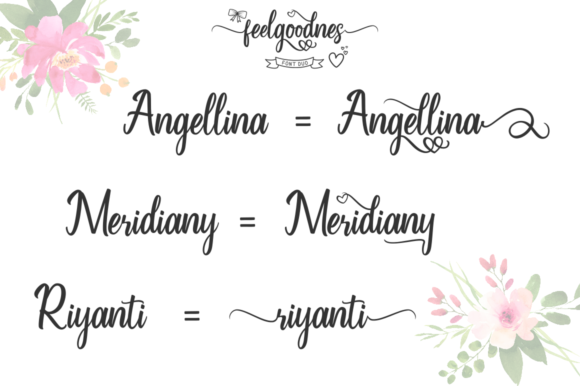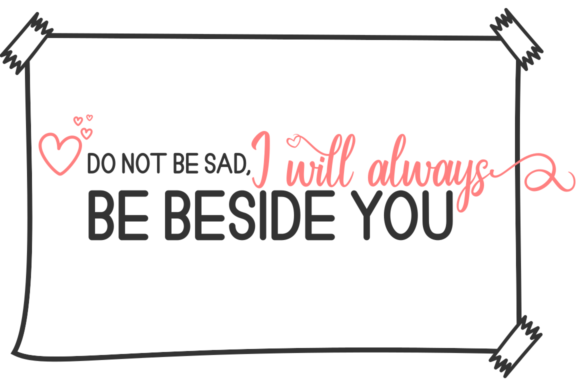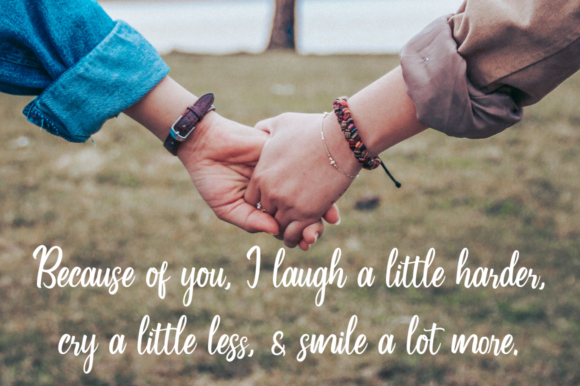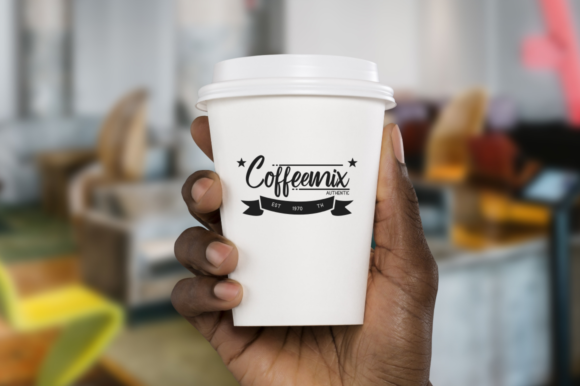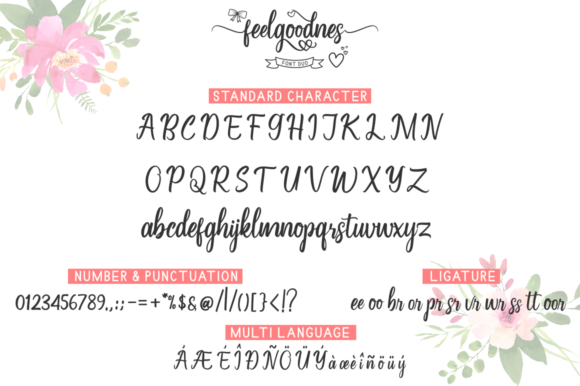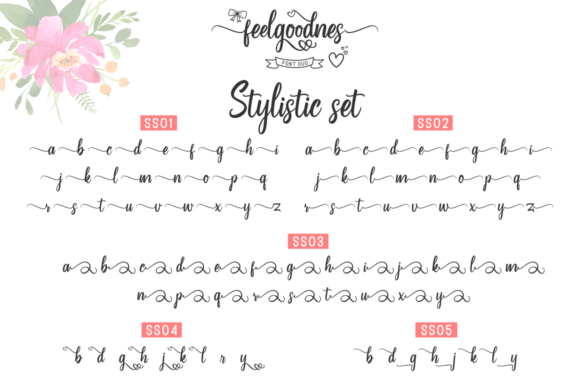
Introducing Feelgoodnes Font: The Perfect Modern Font Duo for Designers and Crafters
Are you tired of using the same old fonts in your designs? Look no further than Feelgoodnes Font, a modern font duo that combines a beautiful handwritten script with a clean sans font style. This stunning font combination is perfect for designers and crafters looking to add a touch of elegance and sophistication to their work.
What is Feelgoodnes Font?
Feelgoodnes Font is a modern font duo that consists of two complementary fonts: a handwritten script font and a sans font style. The handwritten font is a beautiful, light script with an amazing feel that’s perfect for adding a personal touch to your designs. The sans font style, on the other hand, provides a clean and modern contrast to the script font, making it ideal for headings, titles, and other design elements.
Key Features of Feelgoodnes Font
- Handwritten Script Font: The handwritten script font in Feelgoodnes Font is a beautiful, light script that’s perfect for adding a personal touch to your designs. Its elegant and flowing lines make it ideal for use in invitations, greeting cards, and other designs where you want to convey a sense of warmth and personality.
- Clean Sans Font Style: The sans font style in Feelgoodnes Font provides a clean and modern contrast to the script font. Its simple and straightforward design makes it perfect for use in headings, titles, and other design elements where you want to convey a sense of professionalism and sophistication.
- Modern and Versatile: Feelgoodnes Font is a modern font duo that’s perfect for a wide range of design applications. Whether you’re designing a logo, creating a website, or crafting a social media graphic, this font duo has got you covered.
- Easy to Read: Both fonts in Feelgoodnes Font are easy to read, making them perfect for use in body text, headings, and other design elements.
Why Choose Feelgoodnes Font?
There are many reasons why designers and crafters should choose Feelgoodnes Font for their next project. Here are just a few:
- Unique and Creative: Feelgoodnes Font is a unique and creative font duo that will help your designs stand out from the crowd.
- High-Quality Design: The fonts in Feelgoodnes Font are designed to high standards, ensuring that they look great in any design application.
How to Use Feelgoodnes Font
Using Feelgoodnes Font is easy. Here are just a few tips to get you started:
- Pair the Fonts: The best way to use Feelgoodnes Font is to pair the handwritten script font with the sans font style. This will create a beautiful and harmonious design that’s perfect for a wide range of applications.
- Use for Headings and Titles: The sans font style in Feelgoodnes Font is perfect for use in headings and titles. Its clean and modern design makes it ideal for conveying a sense of professionalism and sophistication.
- Use for Body Text: The handwritten script font in Feelgoodnes Font is perfect for use in body text. Its elegant and flowing lines make it easy to read and perfect for conveying a sense of warmth and personality.
Feelgoodnes Font is a modern font duo that’s perfect for designers and crafters looking to add a touch of elegance and sophistication to their work. With its beautiful handwritten script font and clean sans font style, this font duo is perfect for a wide range of design applications. Whether you’re designing a logo, creating a website, or crafting a social media graphic, Feelgoodnes Font has got you covered.